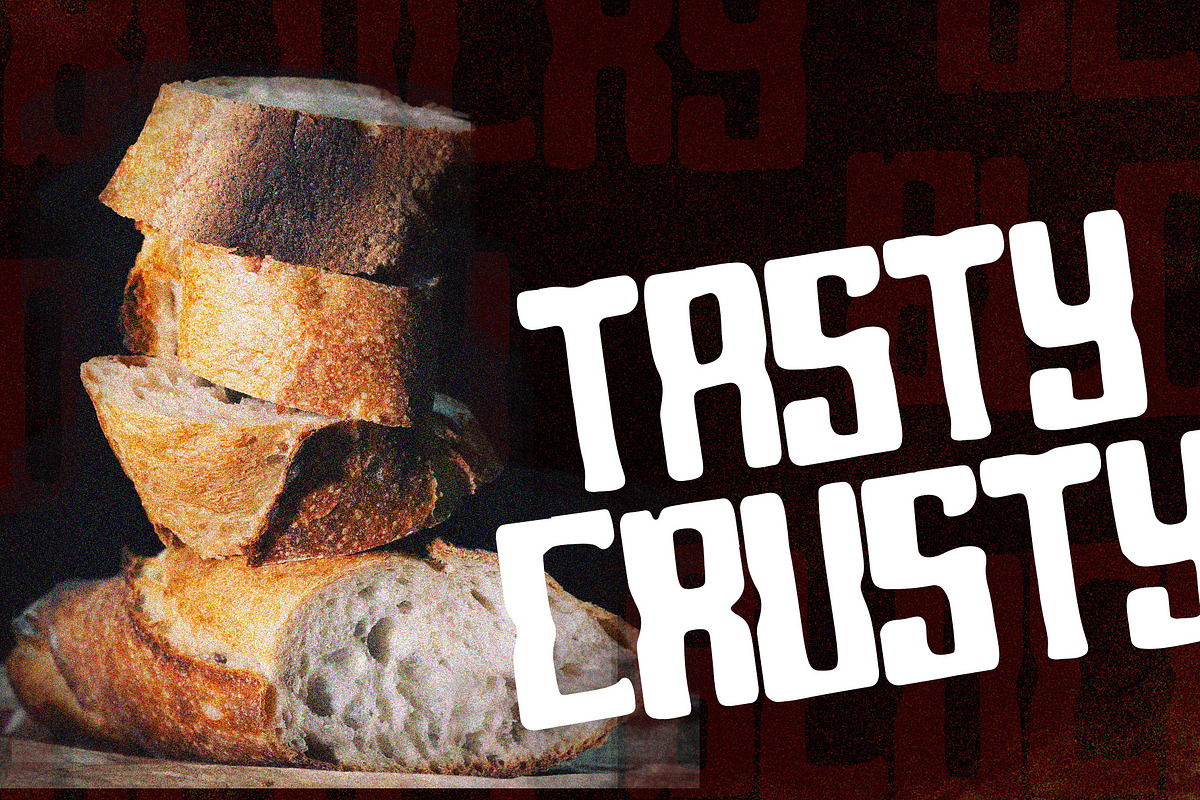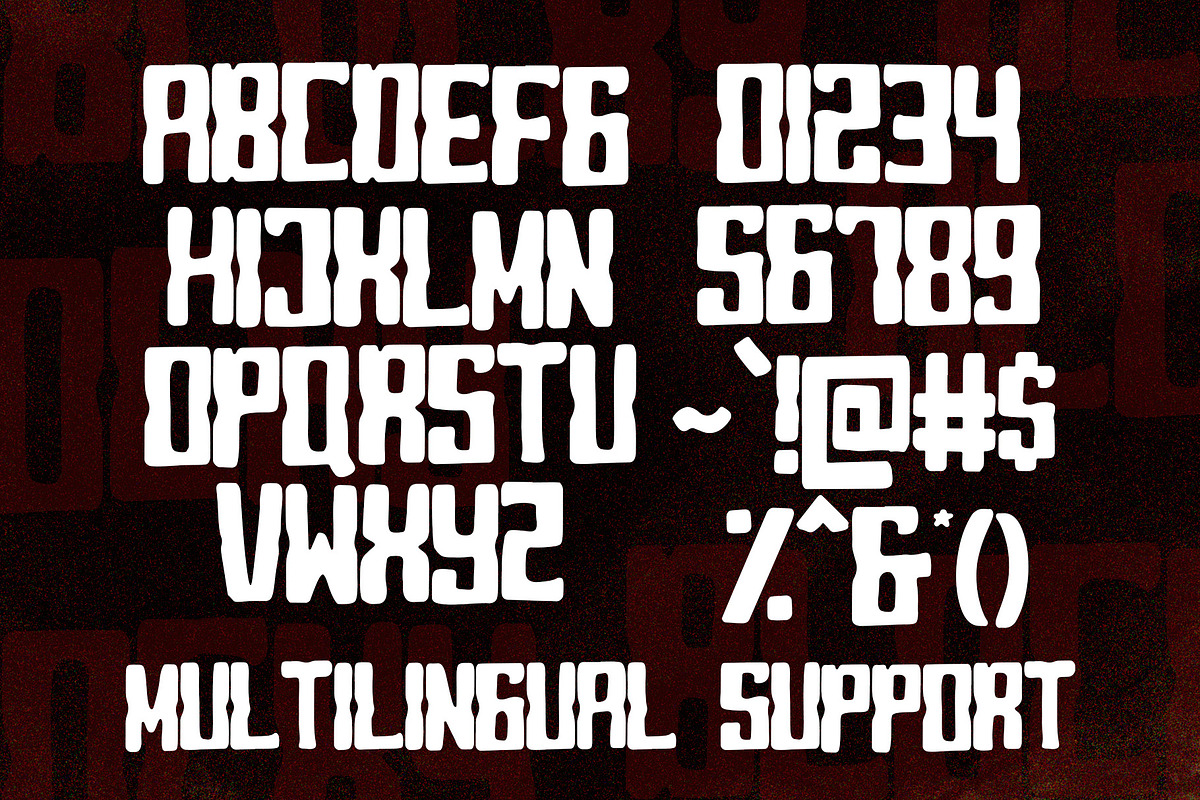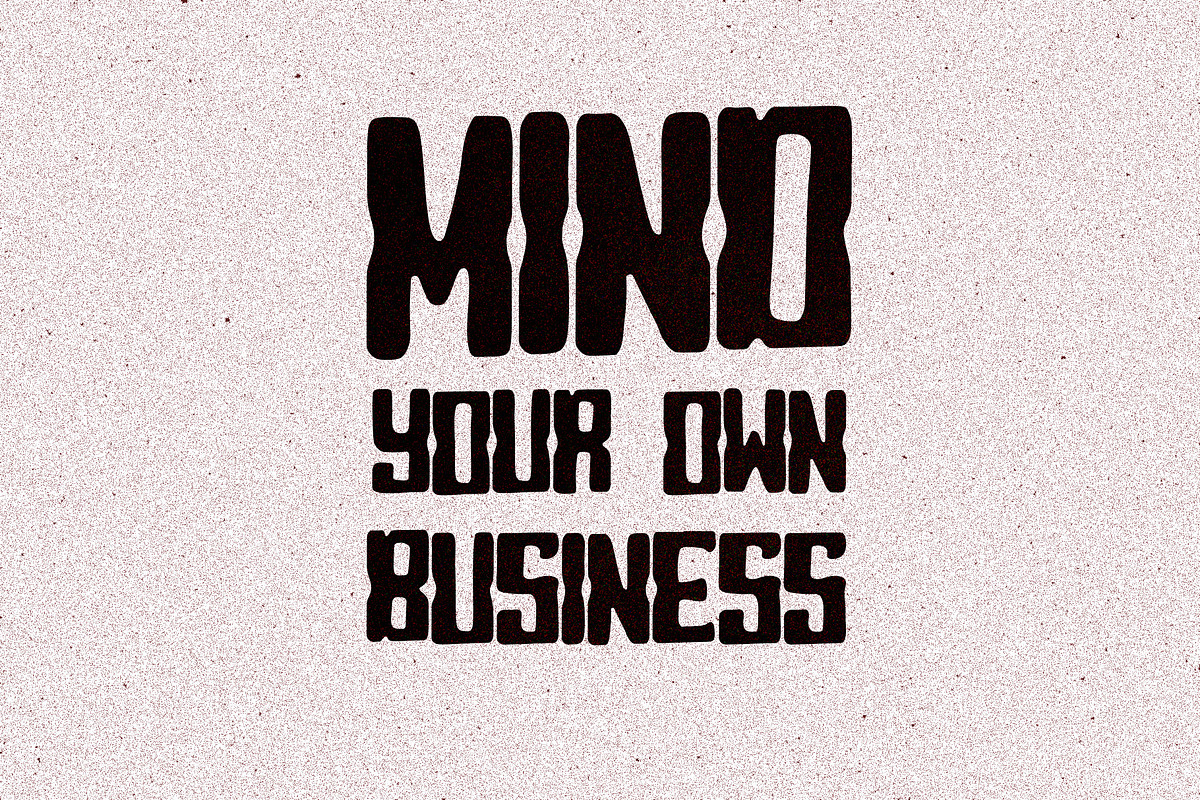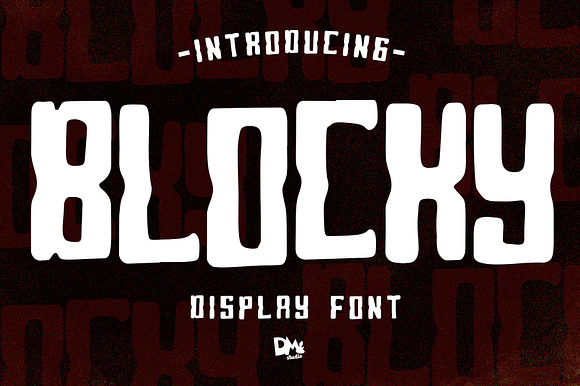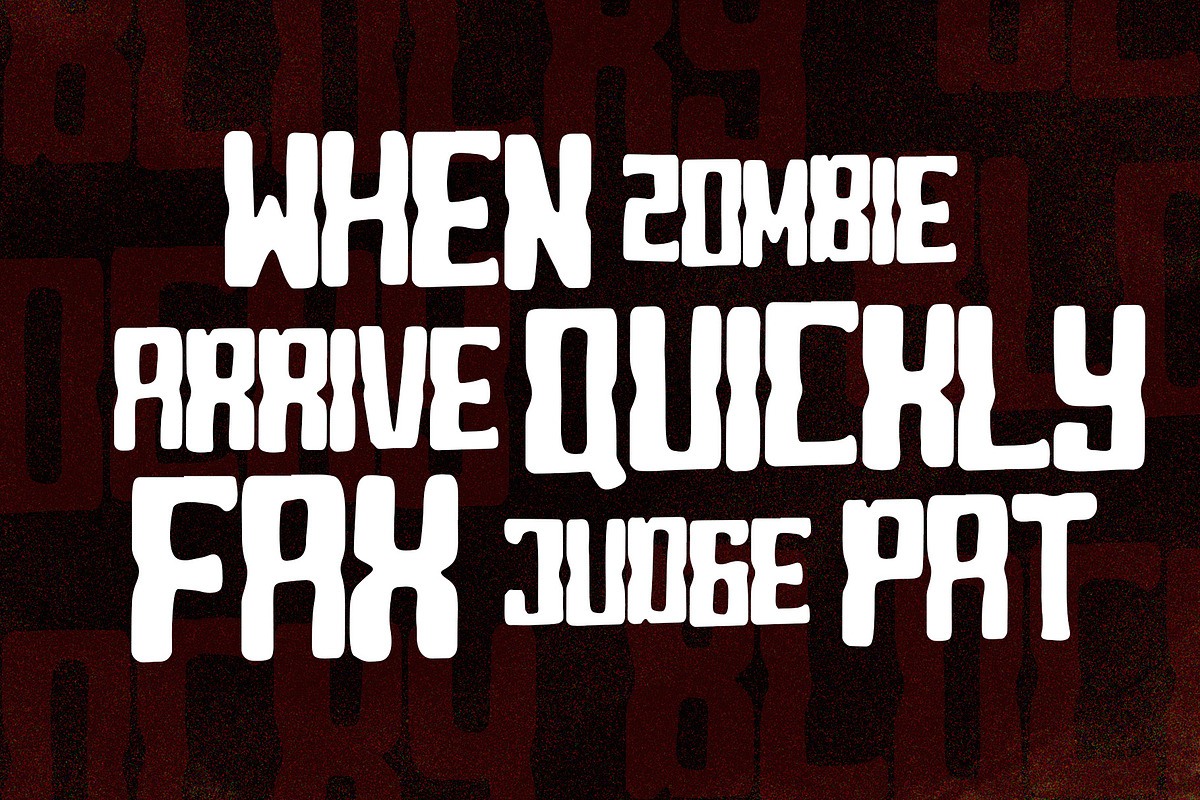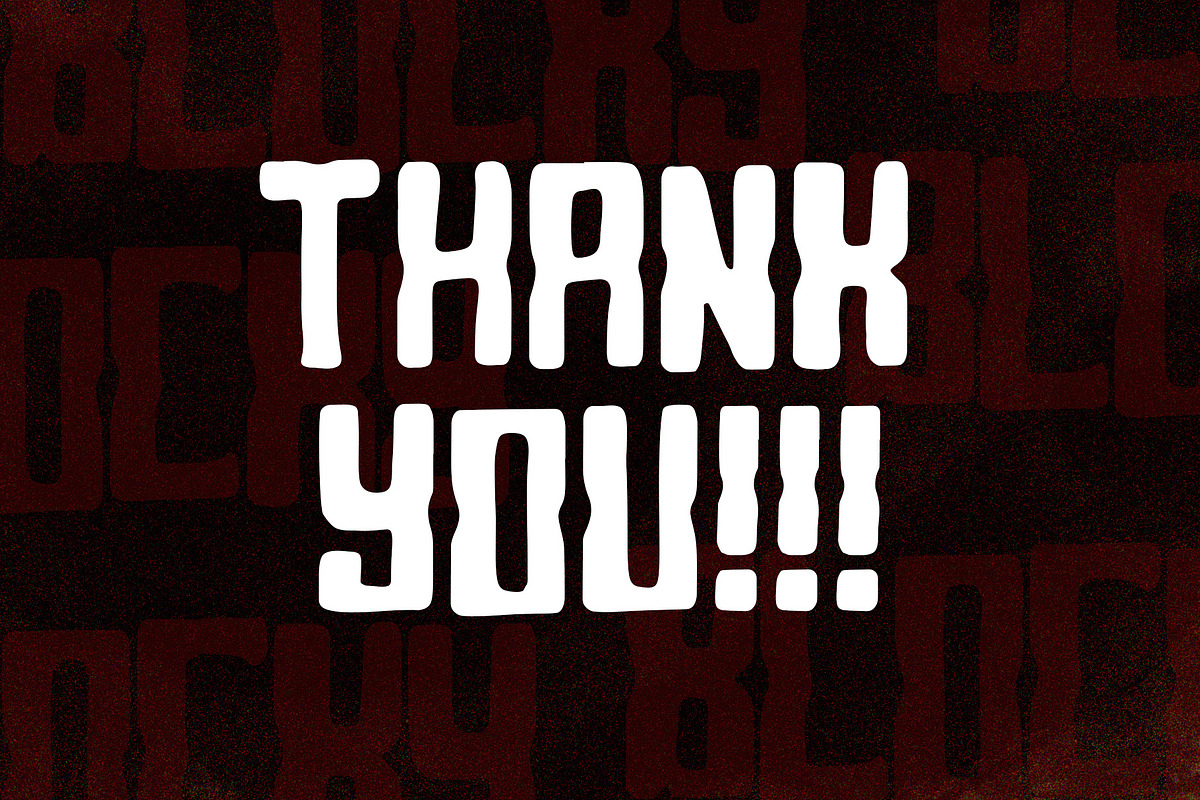
Blocky - Display Font
Introducing, Blocky : The Display Font
Make your design more fun by using this font! Great for your posters, branding, logo, wall arts, cards, tshirts, merchandise, etc.
All in caps characters
- All in caps characters
- Numerics